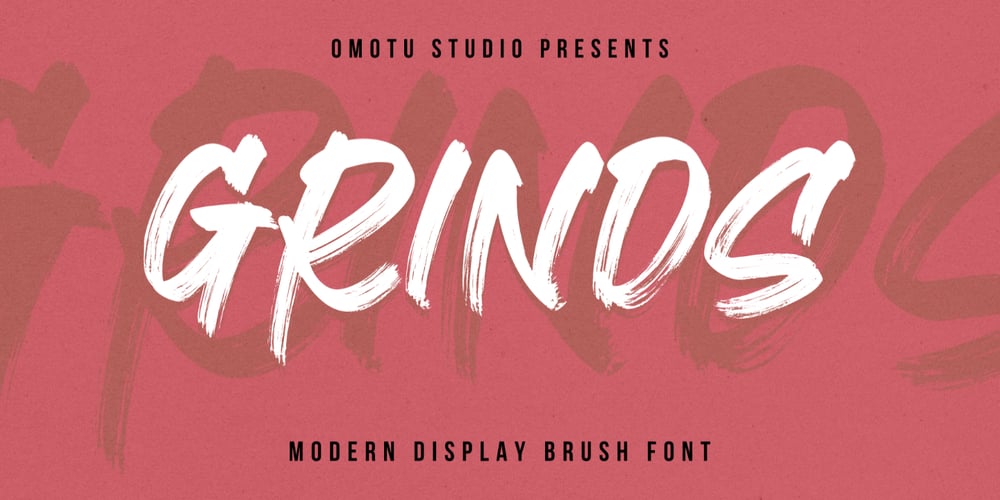
GRINdS Font Family was designed by Ibnu Utomo and published by Omotu. GRINdS contains 1 styles and family package options. SEPHIRO! A handwritten display brush font. SEPHIRO font is suitable for branding, logotype, apparel, T-shirt, Hoodie, product packaging, quotes, flyer, poster, book cover, advertising, etc.Whats Include? Opentype support Multilingual support PUA encoded Features: Uppercase, lowercase, numerals, punctuations, and ligatures Accessible in the Adobe Illustrator Glyphs panel, or under Stylistic Alternates in the Adobe Photoshop OpenType menu, Adobe InDesign, Corel Draw, even work on Microsoft Word TTF, OTF, and WOFF files Please message me if you’re unsure of any language support.Thanks for looking, and I hope you enjoy it! Please don’t hesitate to drop me a message if you have any issues or queries.